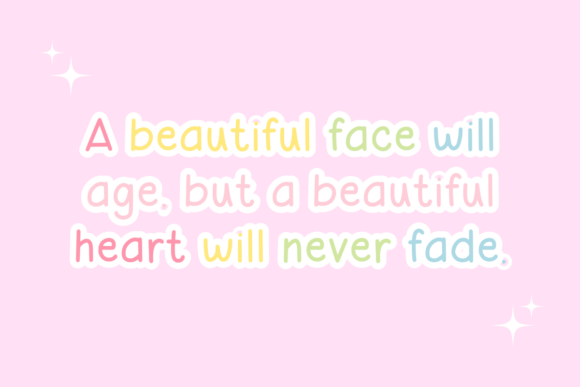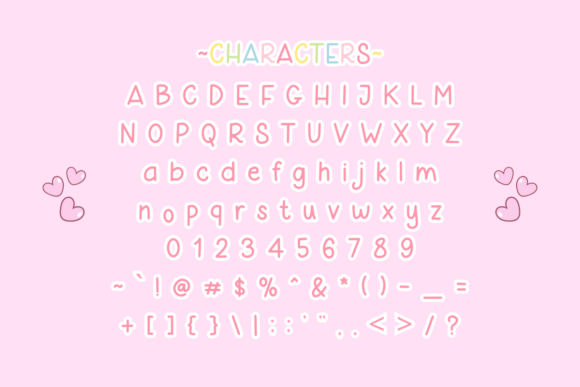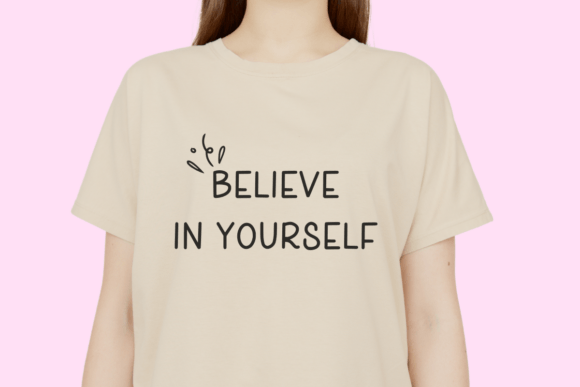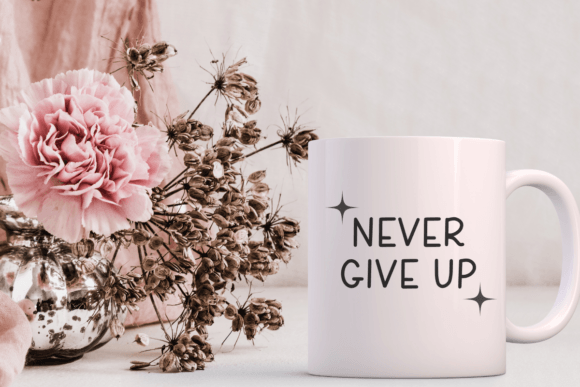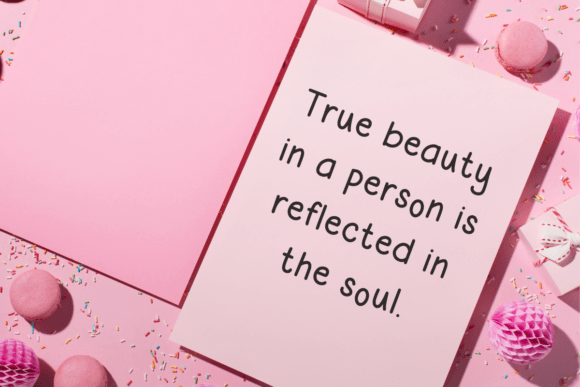
Introducing Happy Twigs Font: The Ultimate Choice for Eye-Catching Designs
Are you a designer or crafter looking for a font that can add a touch of fun and personality to your projects? Look no further than Happy Twigs Font! This sans serif font is the perfect choice for creating eye-catching logos, branding, and quotes that will make your design come alive.
What Makes Happy Twigs Font So Special?
Happy Twigs Font is a unique and beautiful font that is sure to capture the attention of your audience. Every letter has a special touch that sets it apart from other fonts. The font is designed to be fun and playful, making it perfect for projects that require a lighthearted and creative approach.
Key Features of Happy Twigs Font
- Unique and Beautiful Touch: Every letter in Happy Twigs Font has a unique and beautiful touch that will make your design stand out.
- Fun and Playful: The font is designed to be fun and playful, making it perfect for projects that require a lighthearted approach.
- Sans Serif: Happy Twigs Font is a sans serif font, making it easy to read and perfect for digital and print projects.
- Eye-Catching: The font is designed to be eye-catching, making it perfect for logos, branding, and quotes.
Why Choose Happy Twigs Font?
There are many reasons why Happy Twigs Font is the perfect choice for designers and crafters. Here are just a few:
- Perfect for Logos and Branding: Happy Twigs Font is perfect for creating eye-catching logos and branding that will make your business stand out.
- Great for Quotes and Sayings: The font is also great for creating quotes and sayings that will add a touch of personality to your projects.
- Easy to Read: The sans serif design of Happy Twigs Font makes it easy to read, even at small sizes.
- Versatile: The font is versatile and can be used for a variety of projects, from digital designs to print projects.
How to Use Happy Twigs Font
- Experiment with Colors: The font looks great in a variety of colors, so don’t be afraid to experiment and find the perfect color for your project.
- Use it for Headings and Titles: Happy Twigs Font is perfect for headings and titles, making it a great choice for creating eye-catching designs.
In conclusion, Happy Twigs Font is a fun and unique sans serif font that is perfect for designers and crafters looking to add a touch of personality to their projects. With its eye-catching design and versatile features, it’s the perfect choice for creating logos, branding, quotes, and more. So why wait? Try Happy Twigs Font today and see the difference it can make in your designs!